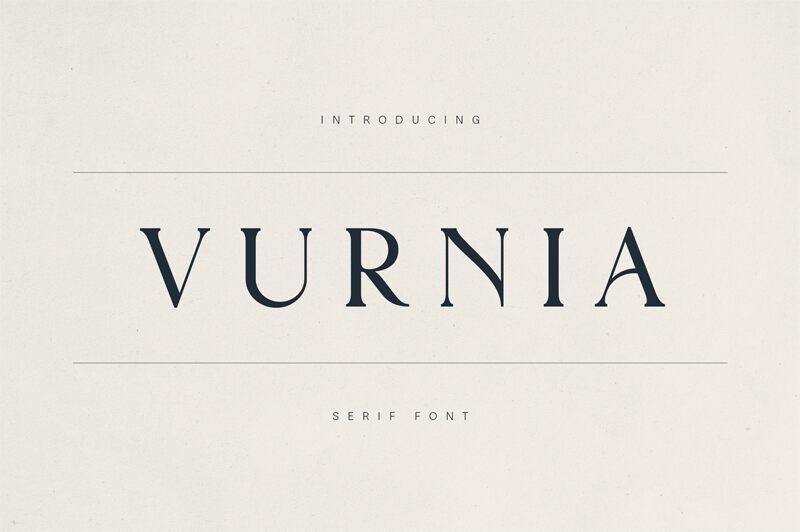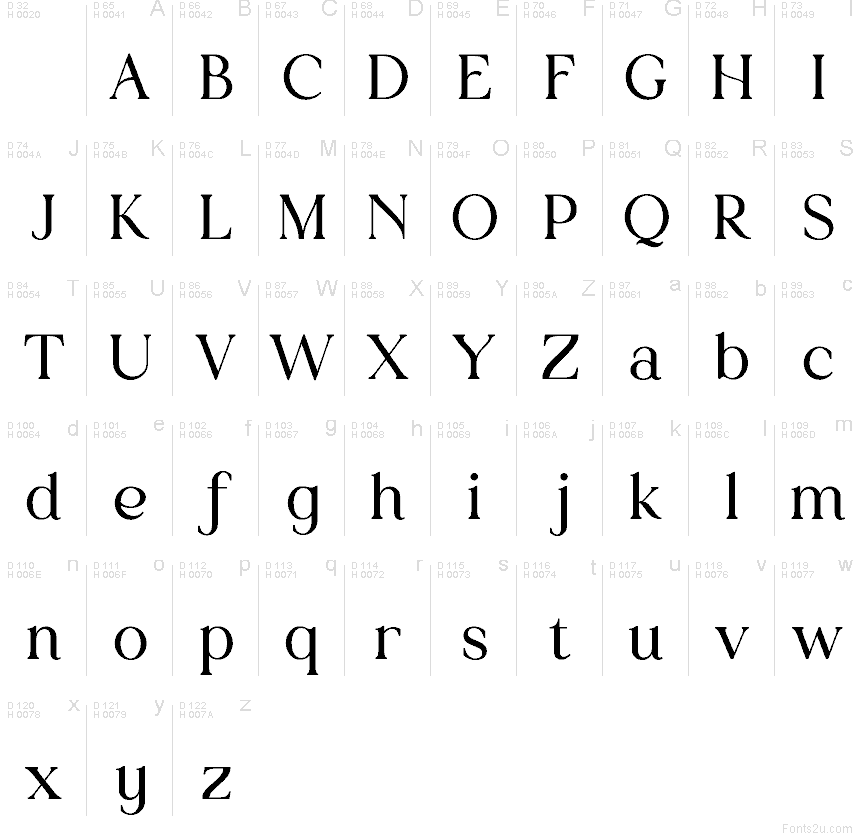
Vurnia Regular
Vurnia font by VPcreativeshop is a free serif typeface that walks a crisp line between classic bookish charm and modern, editorial sharpness. Its slender stems, inky curves, and subtly flared details give each word a graceful, almost calligraphic flow, while the tight rhythm keeps text looking clean and intentional rather than fussy. There’s a quiet drama here that feels luxurious without shouting.
Using Vurnia, headlines and logos gain a poised, literary presence that works beautifully for magazines, boutique brands, packaging, invitations, and elegant website hero text. This free font also holds up nicely in short pull quotes and section titles, especially when paired with a neutral sans serif for body copy. Try it slightly oversized with generous letter spacing to let those refined shapes breathe.